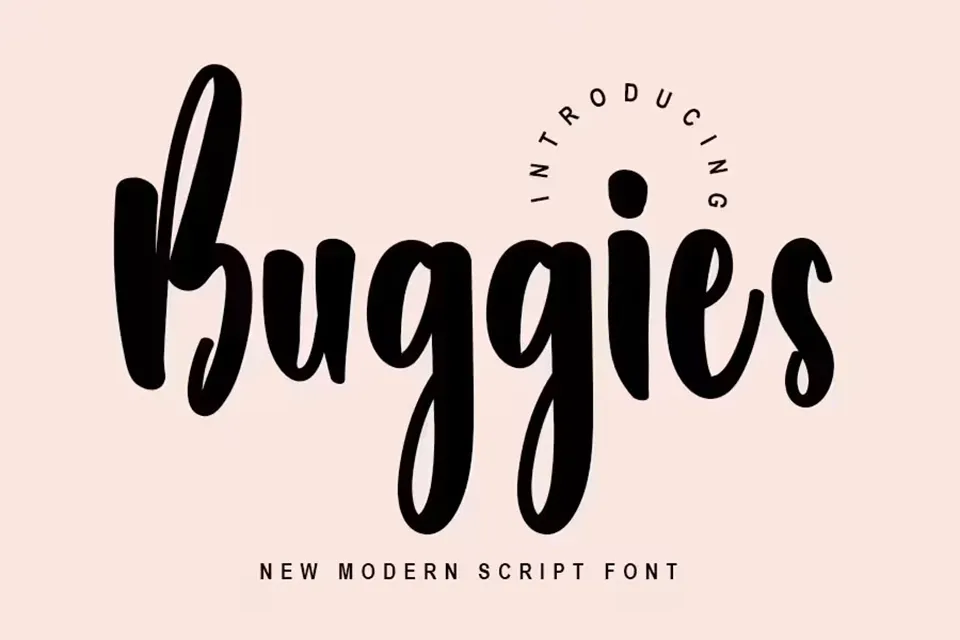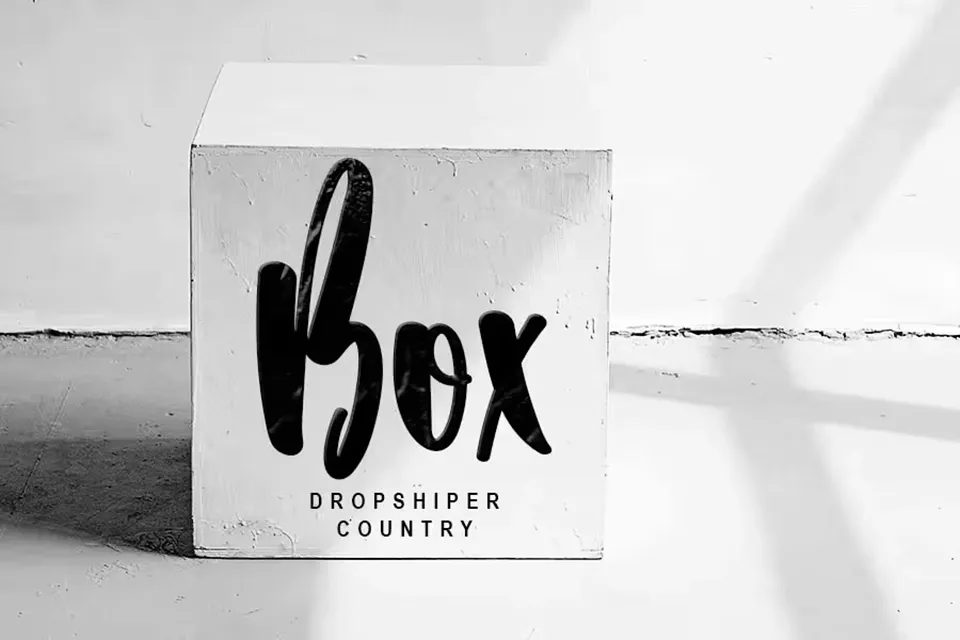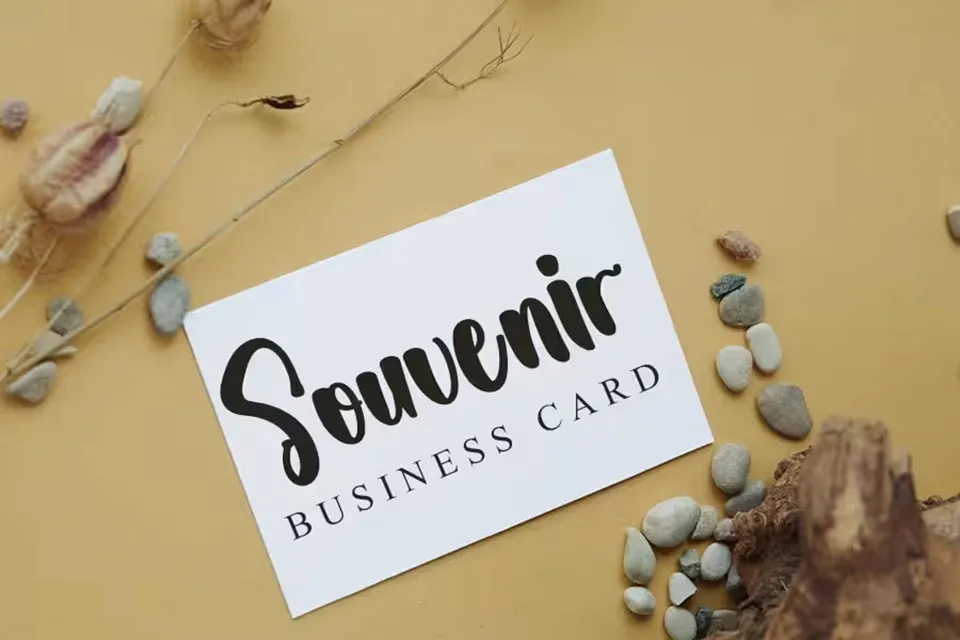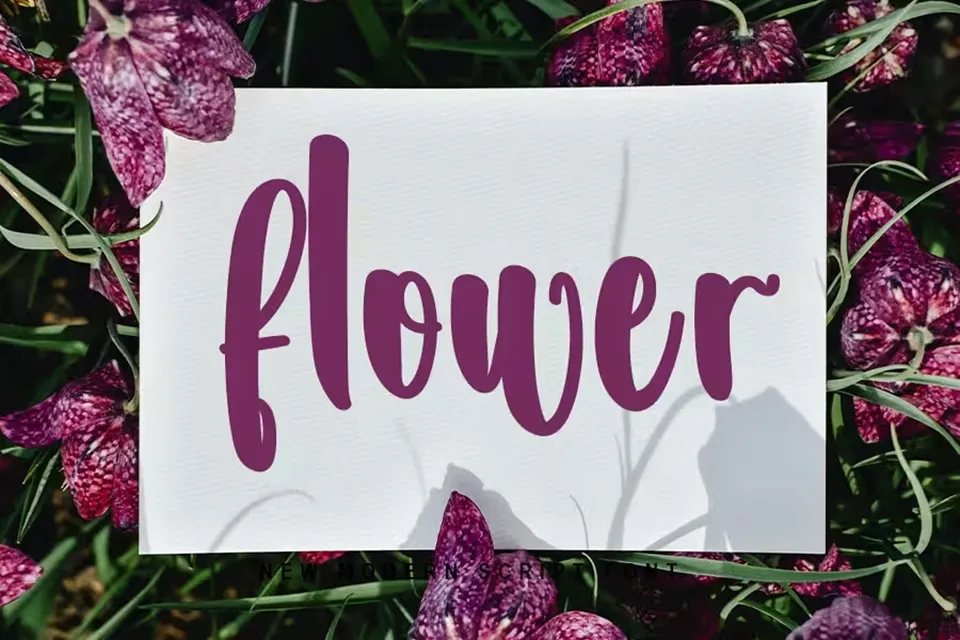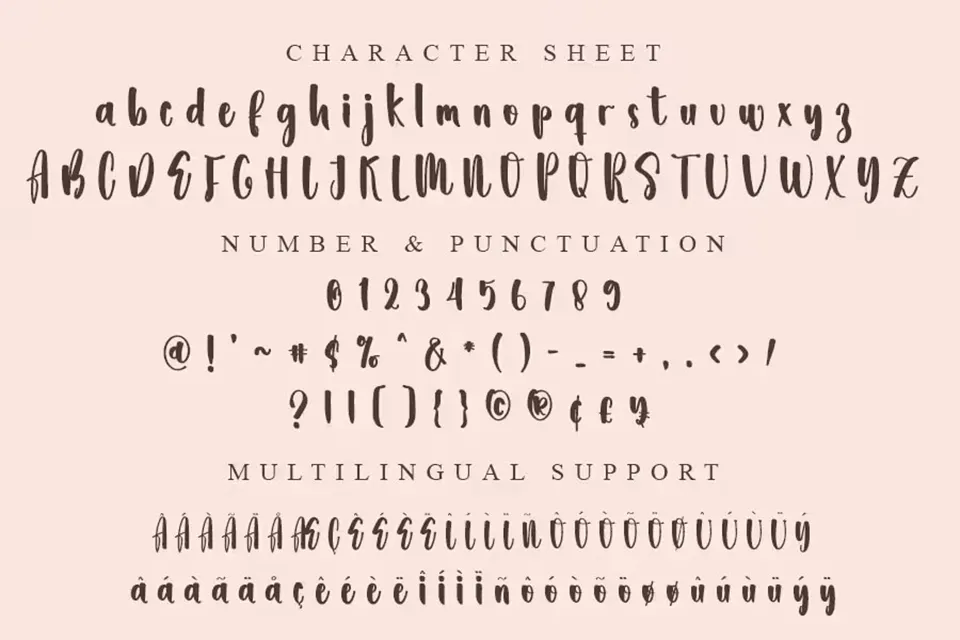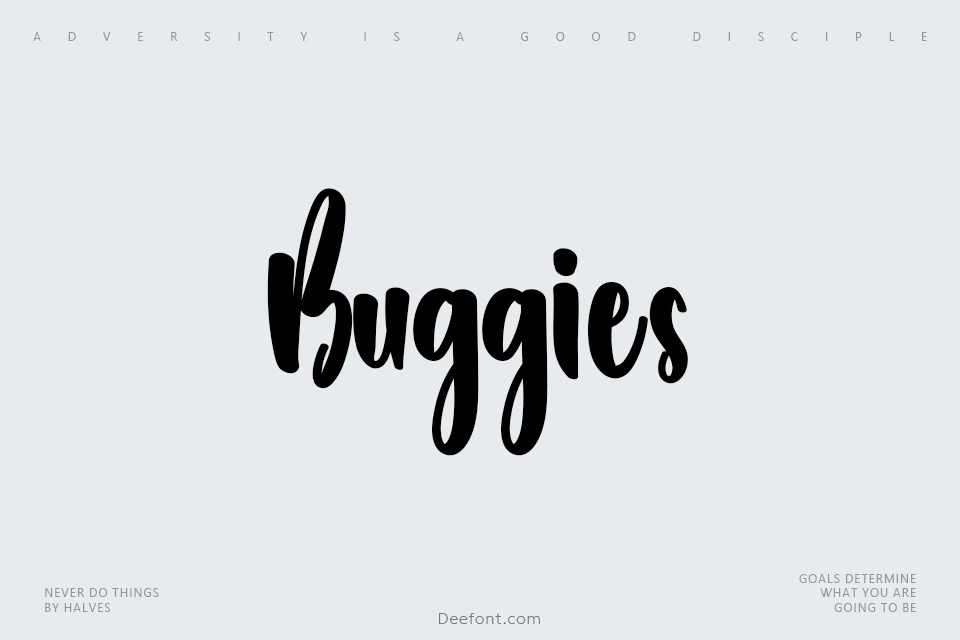
Buggies Font
Buggies Font is a modern script font characterized by its charming and playful style, perfect for creative projects that require a fresh and lively touch. It offers a handwritten feel with smooth curves and bold strokes, making it suitable for branding, invitations, and decorative typography.